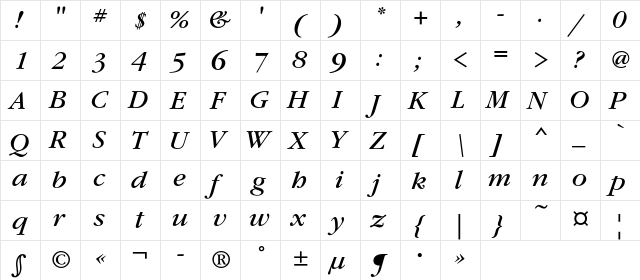
GaramondBookC Italic
Design Context for GaramondBookC Typeface
GaramondBookC is a composed and adaptable typeface that performs quietly and consistently across a wide range of design contexts. The dynamic lean of this cut emphasises speed and emphasis in any layout.
Pro Tip: Try GaramondBookC for annotation and caption copy alongside an upright companion — the contrast in angle creates a dynamic but ordered typographic system.